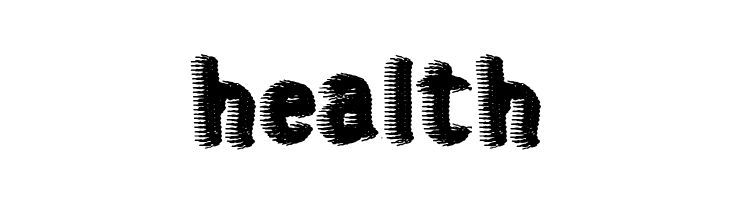
An elegant serif font with a classic italic style and refined serifs.
A classic serif typeface with elegant and balanced letterforms.
A playful handwritten font with flowing, irregular strokes and unique character designs.
A bold, textured font with a playful, hand-drawn style.
A raw, edgy font with hand-drawn, jagged strokes and a chaotic feel.
A rugged, hand-drawn brush-style font with dynamic strokes and an organic feel.
A bold, angular, and italicized font with a dynamic, edgy style.
A bold, italicized font with a dynamic, brush-like style.
A bold, rugged font with a hand-drawn, dynamic style.
A bold collection of pictographic symbols ideal for gaming and thematic designs.